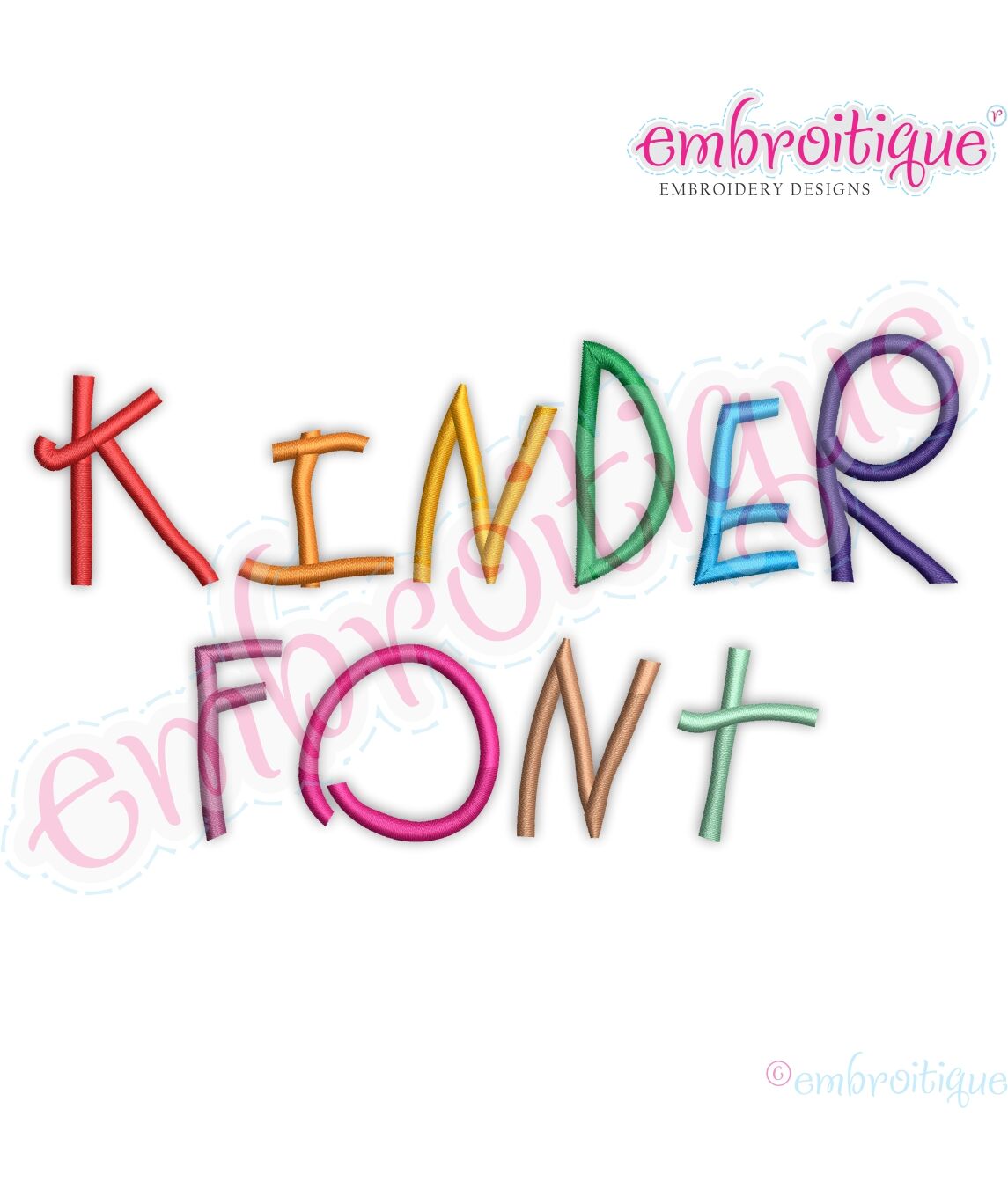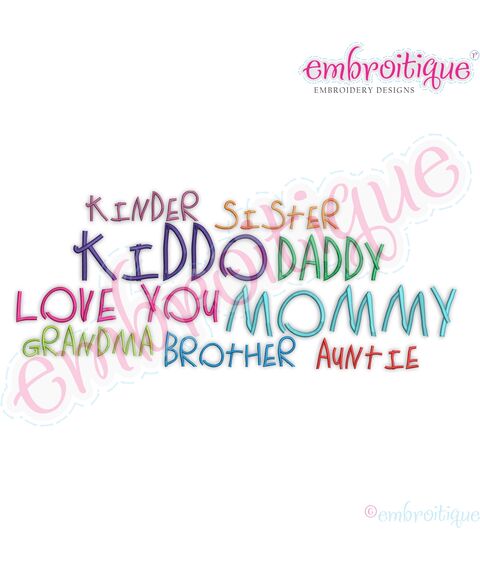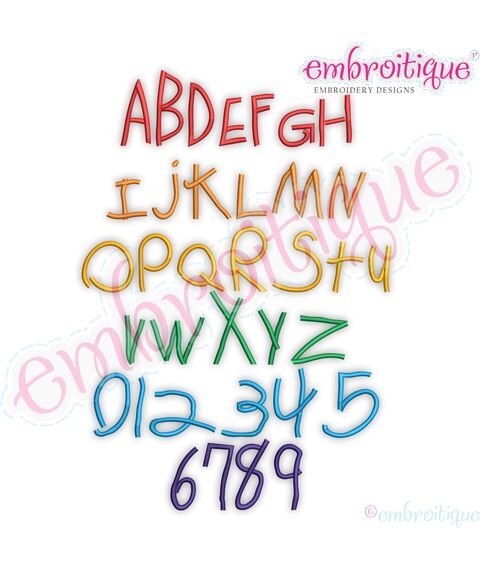
Kinder Writing Kids Font -Small
The sweetest gifts will be made with this precious kids handwriting font. Set includes sizes 1.0", 1.5", 2.0", 2.5", 3.0".